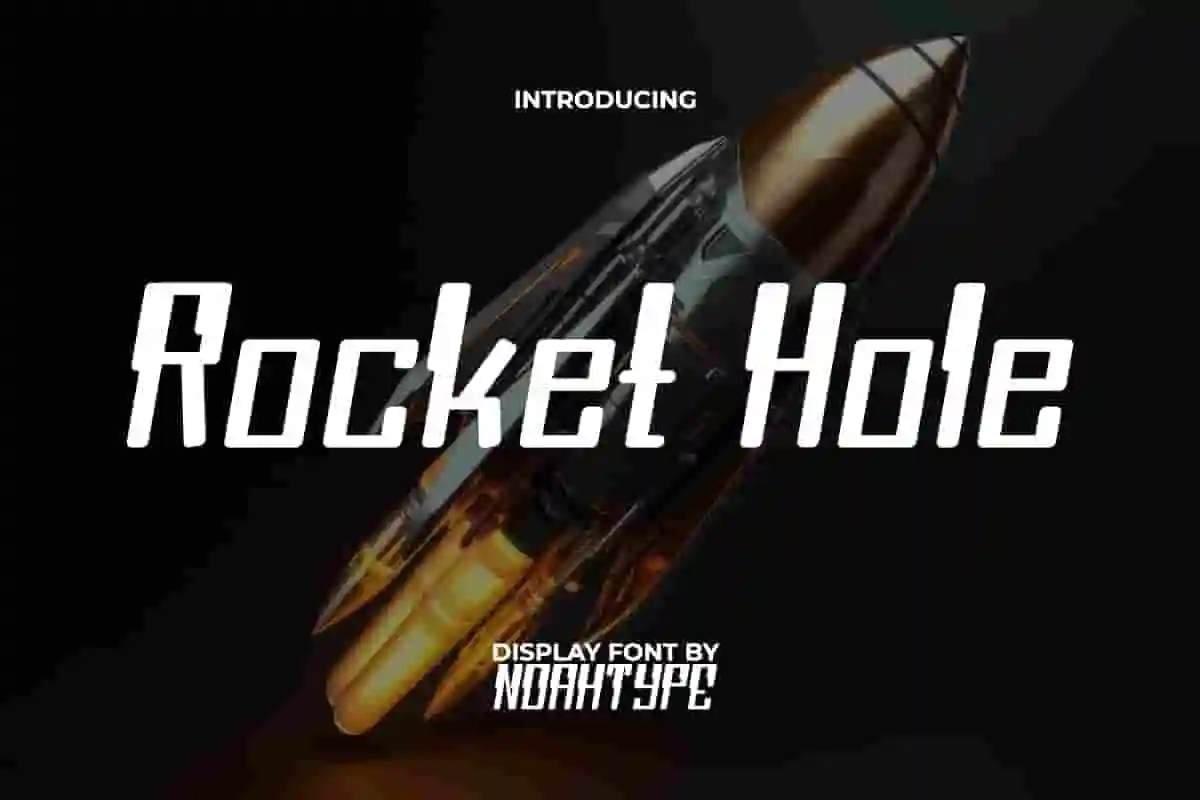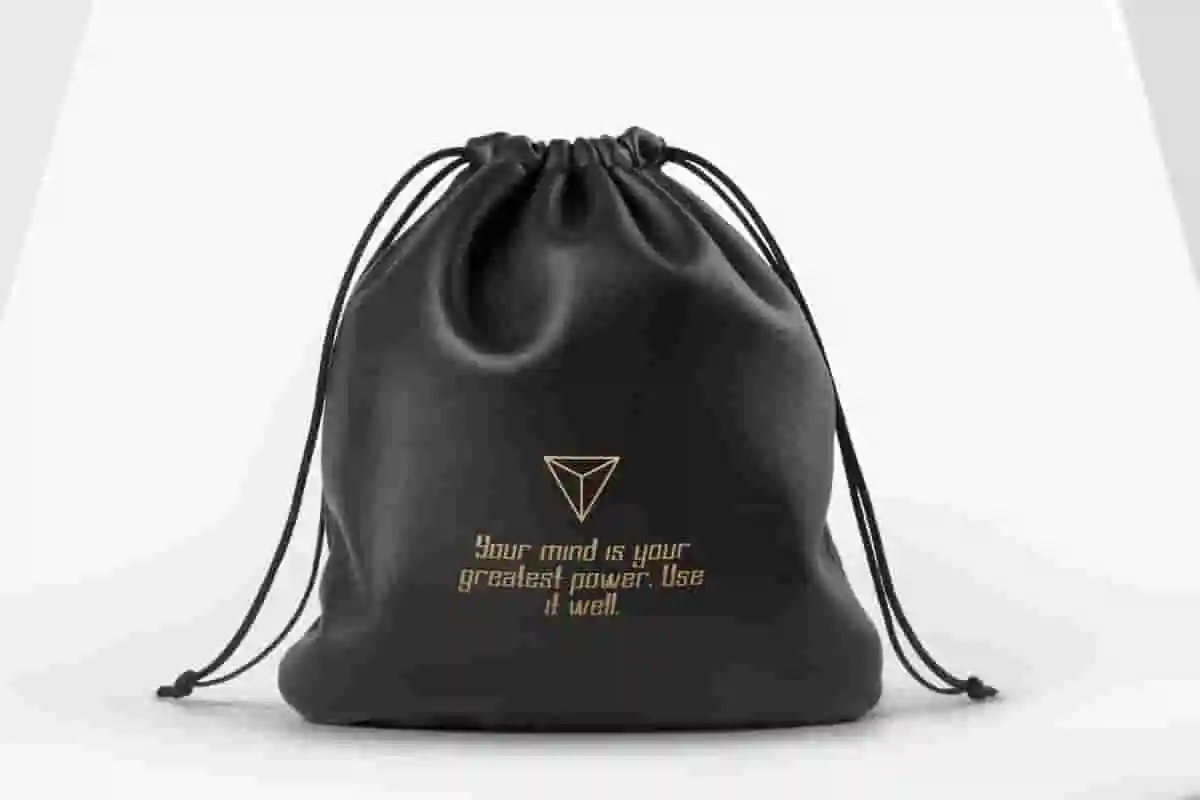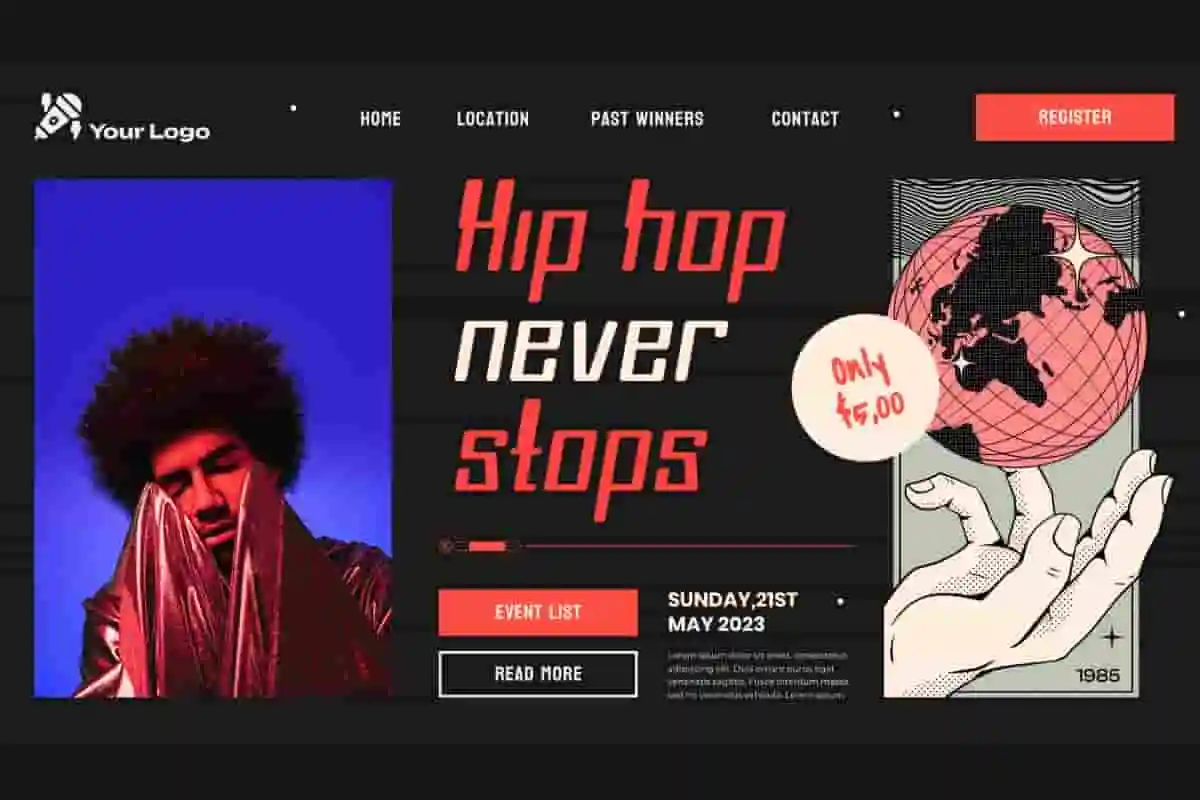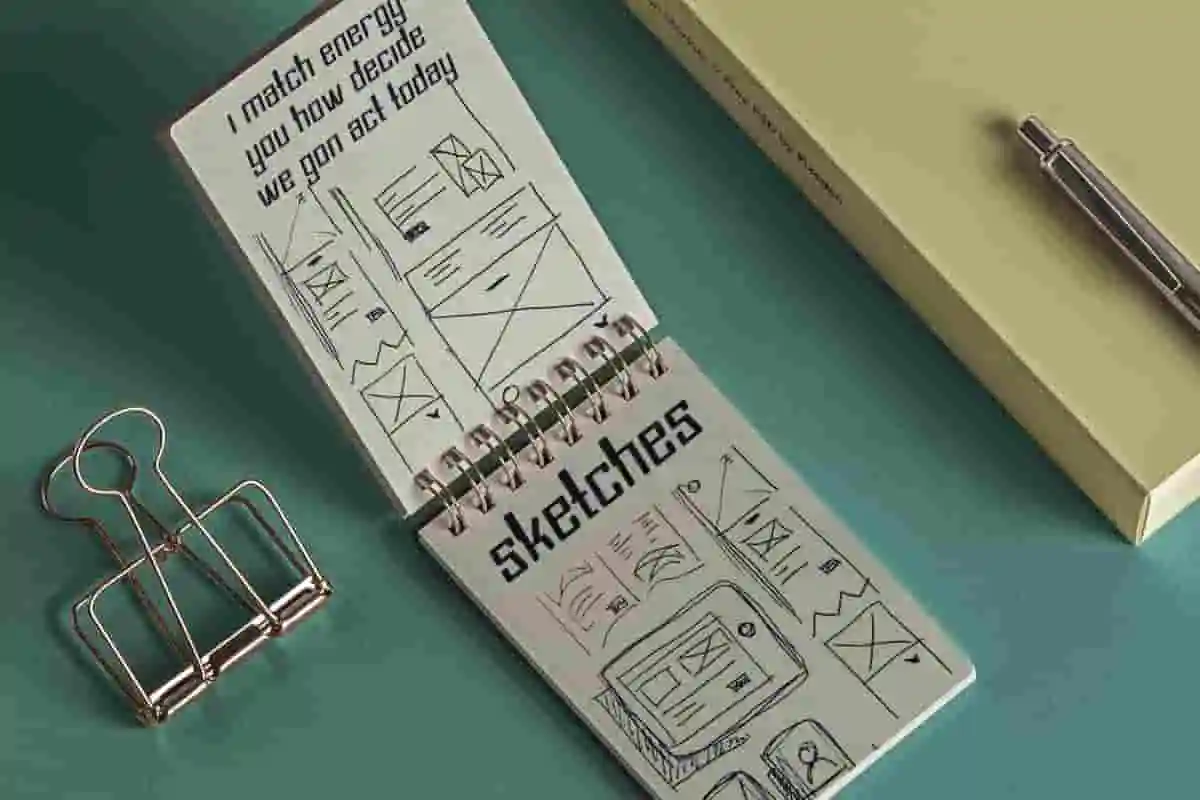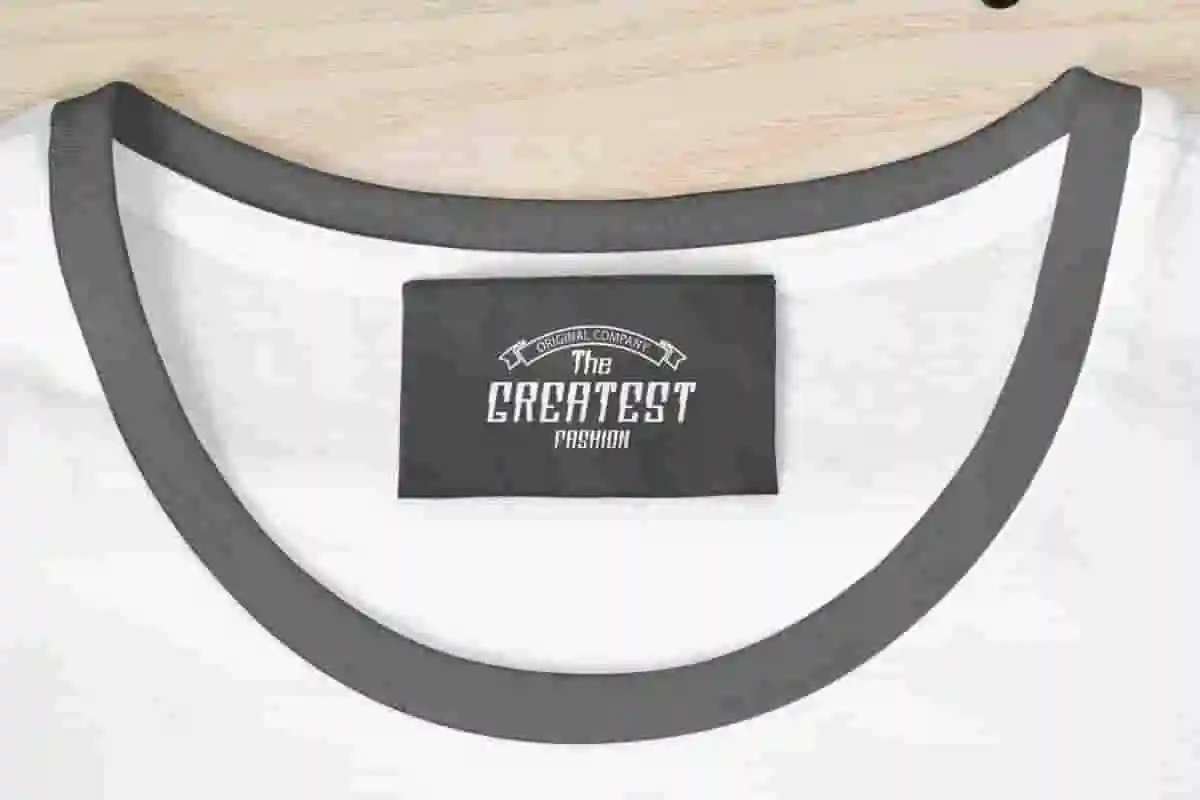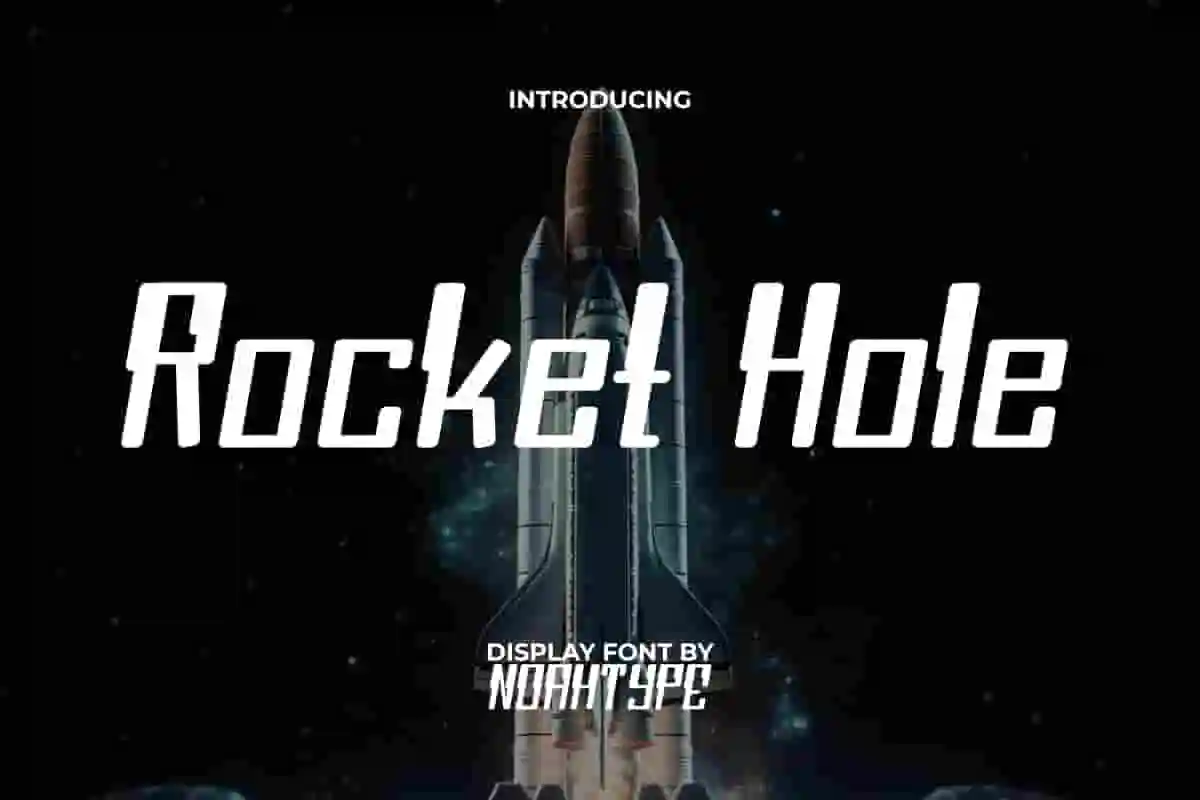
Rocket Hole Font is a display font that has a rocket, racing and gaming theme in a modern style . The style of this font is inspired by the shape of the top of the rocket which is added to each character, making it look bold. It will be perfect for any projects, such as label, custom design, signage, poster, invitation, brand image, stationery, cover, printing, product packaging, quotes, website, and many more!
Rocket Hole Font includes full set of ALL CAPS for Uppercase and Lowercase Basic Characters, Numerals, Punctuation, and Symbol. This stylish font will make your design standout and also a perfect choice for many industries, such as game, movie, music, fashion, cafe, accessories, advertising, art, cafe, event or festival, printing, publishing, etc.